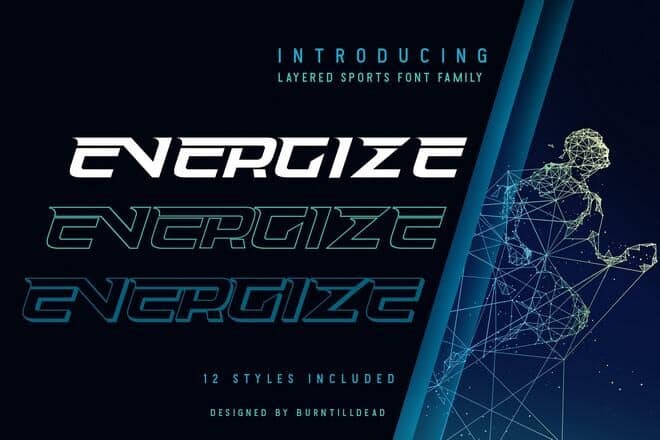
Energy fonts bring a bold and electric personality to modern typography. With aggressive shapes, fast-moving letterforms, and high-contrast details, these fonts are crafted to create a sense of action and momentum. They instantly add intensity to headlines and make designs feel more alive….